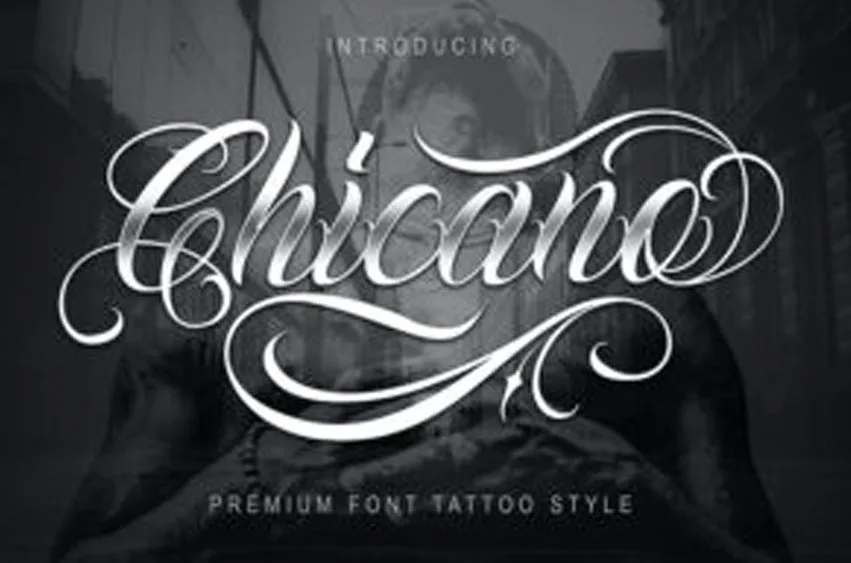
Chicano Font includes uppercase and lowercase letters, numerals, and a large range of punctuation, and ligatures. All lowercase letters include ending swashes and alternative font.